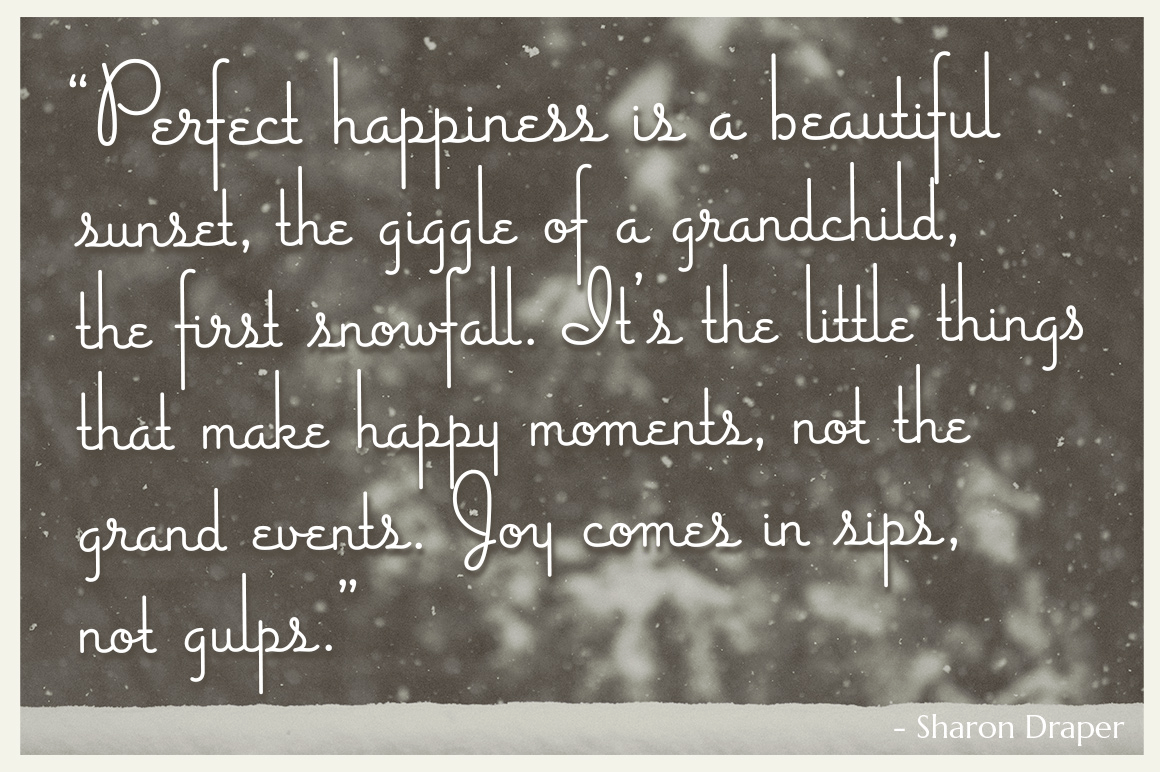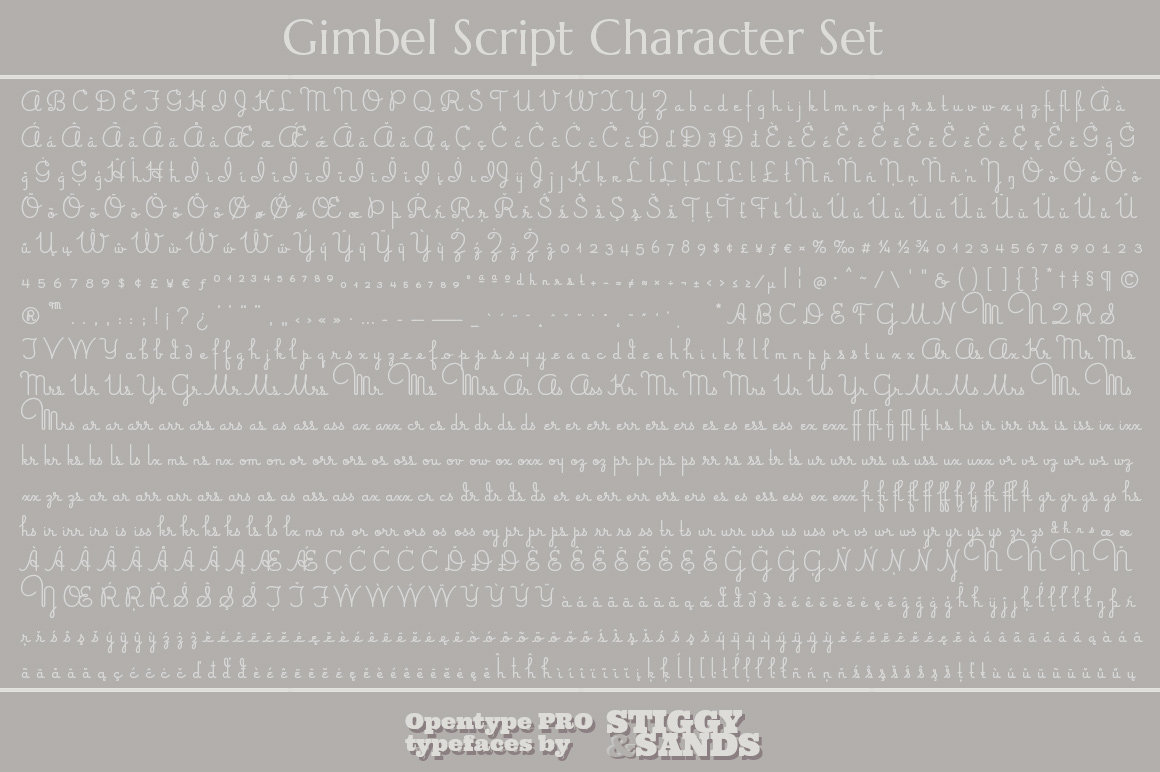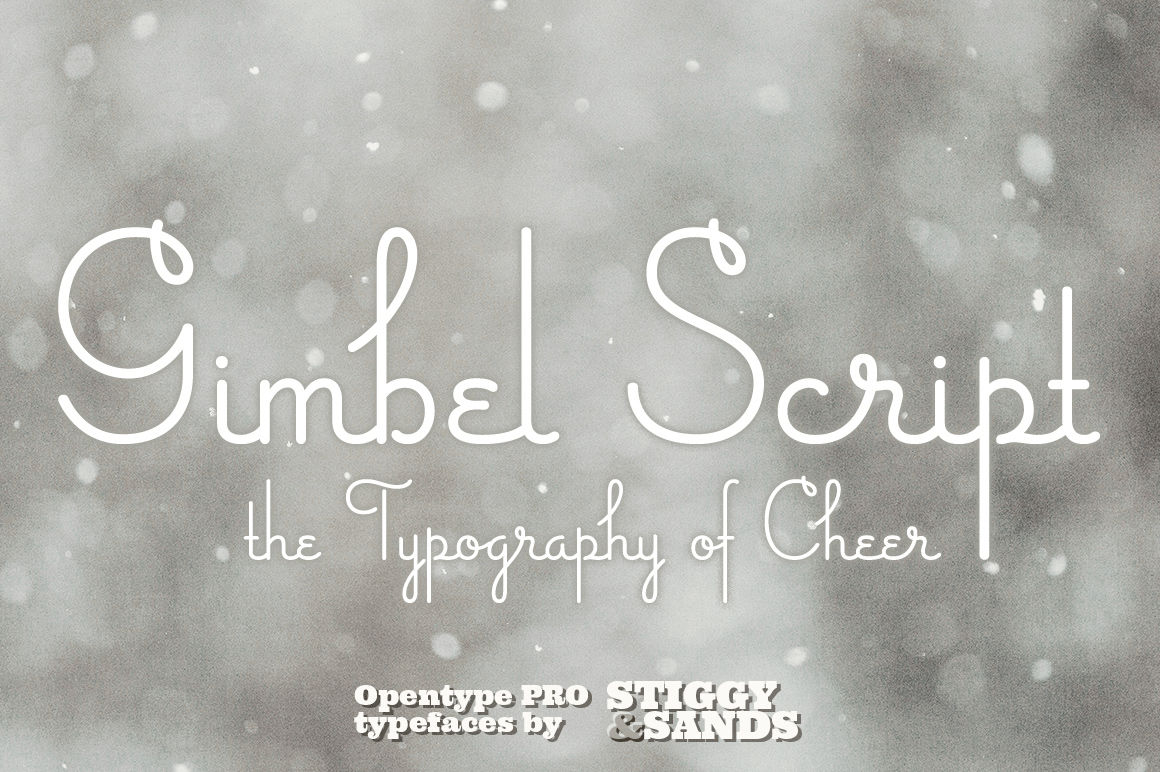
About Gimbel Script
The Gimbel Script typeface was inspired by a monoline, semi-connected script from a 1930\’s holiday greeting card. From its ascenders and descenders that stretch high and low to its gentle curviness. Gimbel Script exudes the elegance of a bygone era while…